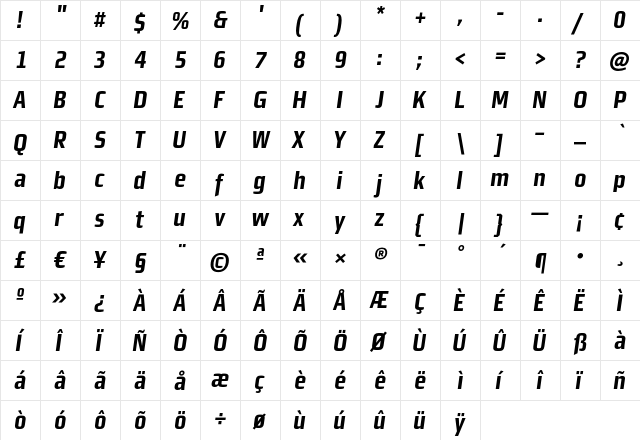
MorganSansCond Bold ItalicLining Font Preview
Design Context for MorganSansCond Typeface
MorganSansCond is a composed and adaptable typeface that performs quietly and consistently across a wide range of design contexts. The slanted form adds forward momentum and visual energy. Its bold stroke weight gives it real presence on the page. The condensed width makes it efficient for tight spaces without sacrificing legibility.
Pro Tip: Try MorganSansCond for annotation and caption copy alongside an upright companion — the contrast in angle creates a dynamic but ordered typographic system.